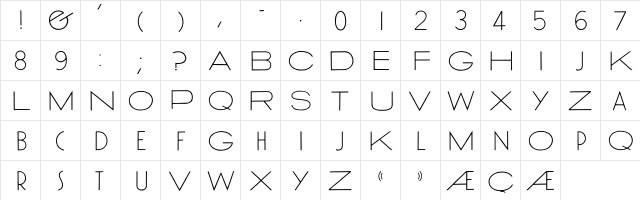
Archive Atlantique Regular
| Foundry | Archive Type |
| Designer | Archive Type |
Design Context for Archive Atlantique Typeface
Archive Atlantique has the warm character of retro typography — evoking diners, record sleeves, and the golden age of print advertising.
Ideal for diner signage, record shop branding, 70s/80s-themed projects, and heritage product labels.
Font Pairing: Combine Archive Atlantique with a simple slab or neutral sans — period-accurate companions reinforce the vintage feel without competing for attention.
Pro Tip: Lean into Archive Atlantique's period character by pairing it with aged paper textures, muted colour palettes, and vintage illustration styles.